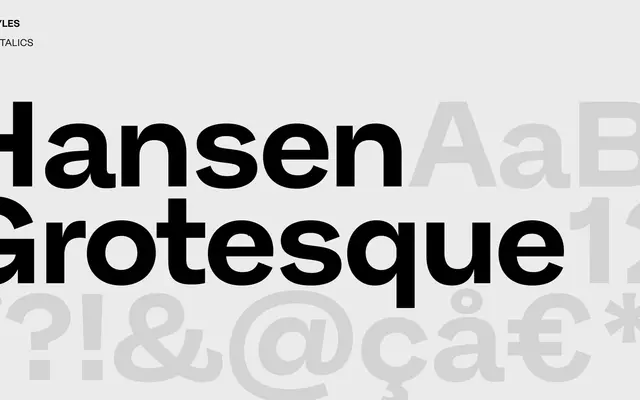
Hansen Grotesque
A grotesque sans from Copenhagen foundry Playtype, drawing on European grotesque conventions for editorial and identity use.
Published by Playtype, the Copenhagen-based foundry known for its retail and custom type work, Hansen Grotesque sits within the European grotesque tradition. The page content scraped offers no technical specimen data, so weights, language support and italic availability cannot be confirmed from the available material. The name suggests a Scandinavian lineage typical of Playtype's broader catalogue.
Named Hansen Grotesque and published by Playtype, the name and specimen copy suggest a classic grotesque sans-serif in the European tradition, likely influenced by Scandinavian and early twentieth-century grotesque models.